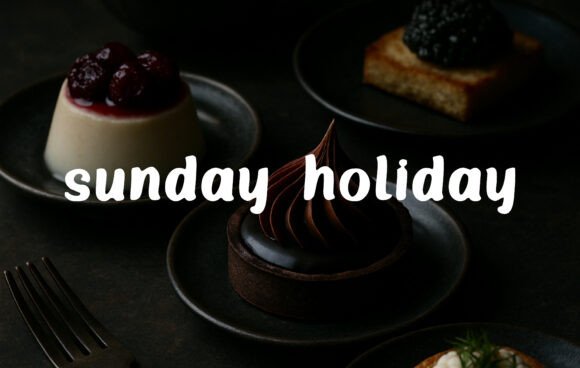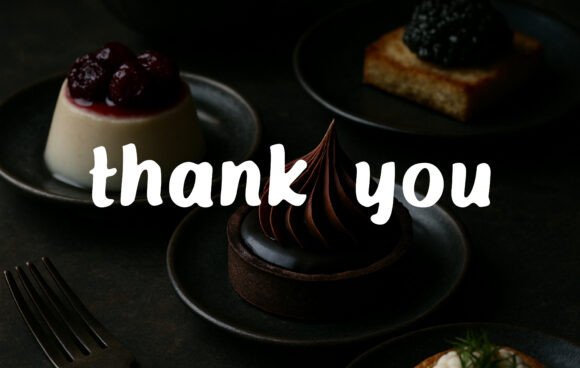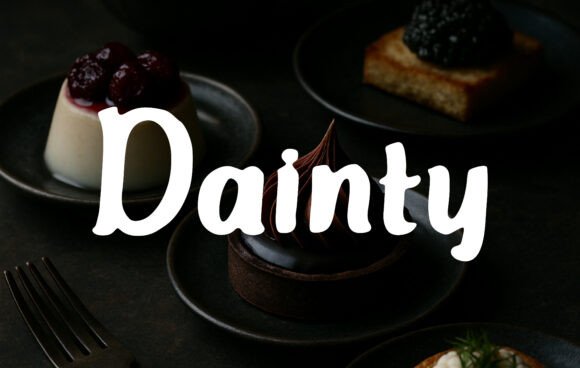
Dainty Font: Add a Touch of Warmth and Charm to Your Designs
In the world of typography, fonts play a crucial role in conveying the tone and personality of a brand or design. If you’re looking for a font that exudes warmth, friendliness, and a touch of playfulness, look no further than the Dainty Font. This delightful font is perfect for designers, crafters, and creatives who want to add a sweet and inviting aesthetic to their projects.
What is Dainty Font?
Dainty Font is a playful font characterized by its smooth curves and cozy, organic vibe. Its bold, rounded letters are designed to add a friendly personality to any design, making it perfect for logos, packaging, greeting cards, and a wide range of creative projects. The font’s unique blend of playfulness and sophistication makes it an excellent choice for bakers, bloggers, and creatives who want to stand out from the crowd.
Key Features of Dainty Font
- Smooth Curves: Dainty Font features smooth, flowing curves that give it a soft and approachable feel.
- Cozy and Organic Vibe: The font’s organic shape and rounded letters evoke a sense of warmth and comfort, making it perfect for designs that require a personal touch.
- Bold and Rounded Letters: The font’s bold letters add a touch of confidence and friendliness to any design, making it ideal for logos, headings, and titles.
- Playful and Inviting: Dainty Font’s unique blend of playfulness and sophistication makes it perfect for creatives who want to add a touch of whimsy to their designs.
Use Cases for Dainty Font
Dainty Font is an incredibly versatile font that can be used in a wide range of design projects, including:
- Logos: The font’s bold, rounded letters make it perfect for logos that require a friendly and approachable feel.
- Packaging: Dainty Font is ideal for packaging designs that require a touch of warmth and charm, such as bakery packaging, gift wrapping, and more.
- Greeting Cards: The font’s playful and inviting aesthetic makes it perfect for greeting cards, invitations, and other paper crafts.
- Blogging: Dainty Font is a great choice for bloggers who want to add a personal touch to their website or social media graphics.
Why Choose Dainty Font?
With so many fonts available, why choose Dainty Font? Here are just a few reasons why this font stands out:
- Unique Personality: Dainty Font has a unique personality that sets it apart from other fonts, making it perfect for designers who want to create distinctive designs.
- Ease of Use: The font is incredibly easy to use, even for designers who are new to typography.
- Versatility: Dainty Font can be used in a wide range of design projects, from logos and packaging to greeting cards and blogging.
Tips for Using Dainty Font
To get the most out of Dainty Font, here are a few tips to keep in mind:
- Pair with Other Fonts: Dainty Font pairs well with other fonts, such as sans-serif fonts, to create a unique and visually appealing design.
- Experiment with Colors: The font looks great in a wide range of colors, from bright and bold to soft and pastel.
- Use in Combination with Images: Dainty Font looks great when used in combination with images, such as photographs or illustrations.
In conclusion, Dainty Font is a playful and inviting font that’s perfect for designers, crafters, and creatives who want to add a touch of warmth and charm to their designs. With its smooth curves, cozy and organic vibe, and bold, rounded letters, this font is sure to become a favorite in your design arsenal. So why not give Dainty Font a try and see how it can elevate your designs?